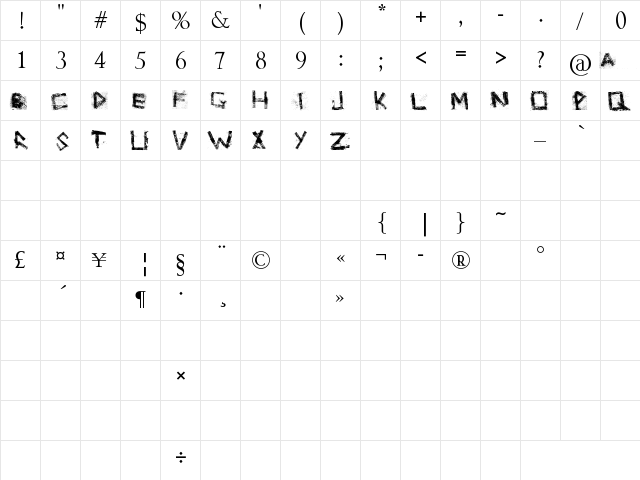
Grunge zinda bad Regular
Design Context for Grunge zinda bad Typeface
Grunge zinda bad trades polish for personality, using distressed and eroded forms to bring grit and attitude to creative work.
A strong fit for alternative music projects, graffiti-adjacent design, and anything that deliberately resists polish.
Pro Tip: Use Grunge zinda bad at larger sizes where the texture and irregularity of each letterform can be clearly seen — it loses its character at small sizes.